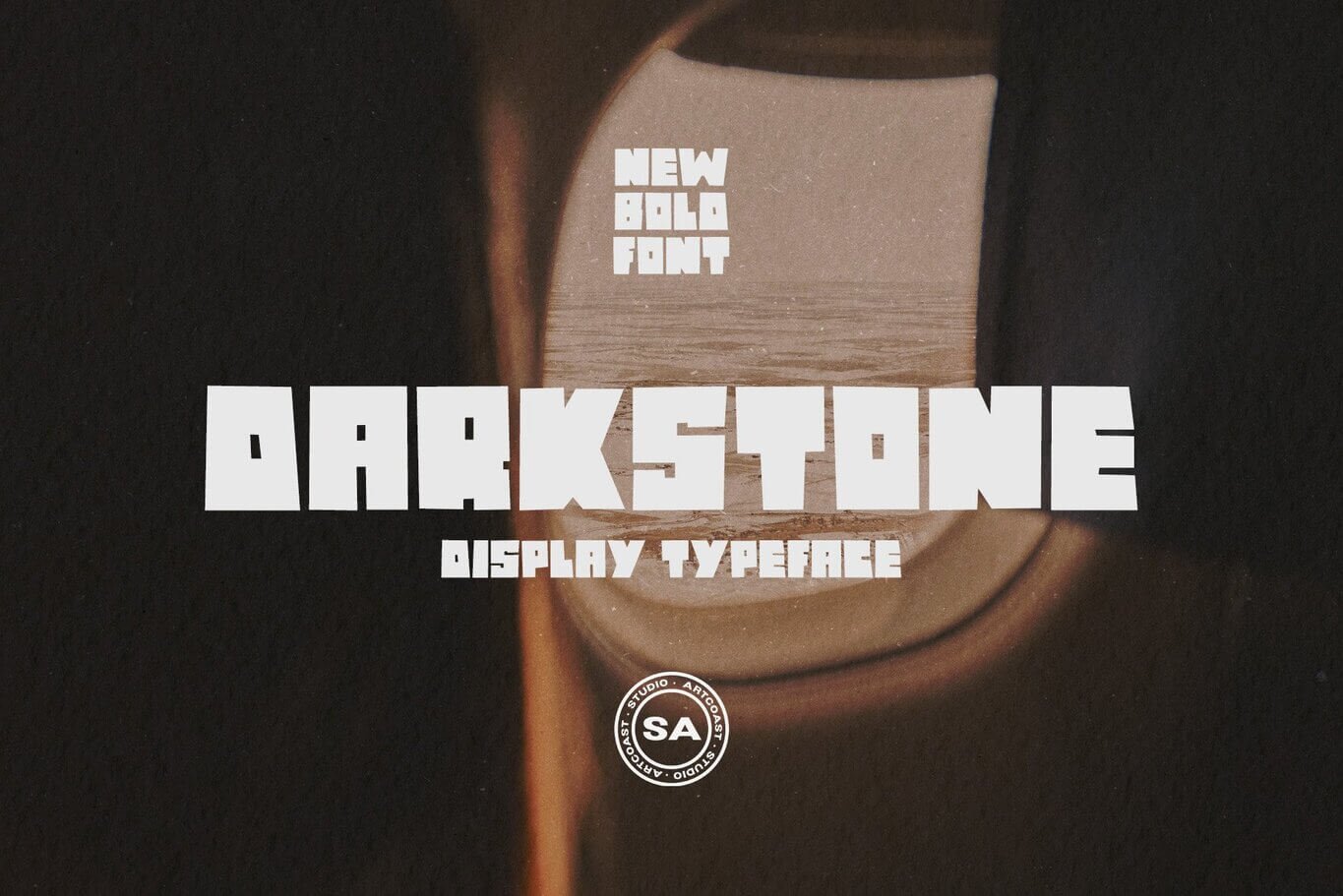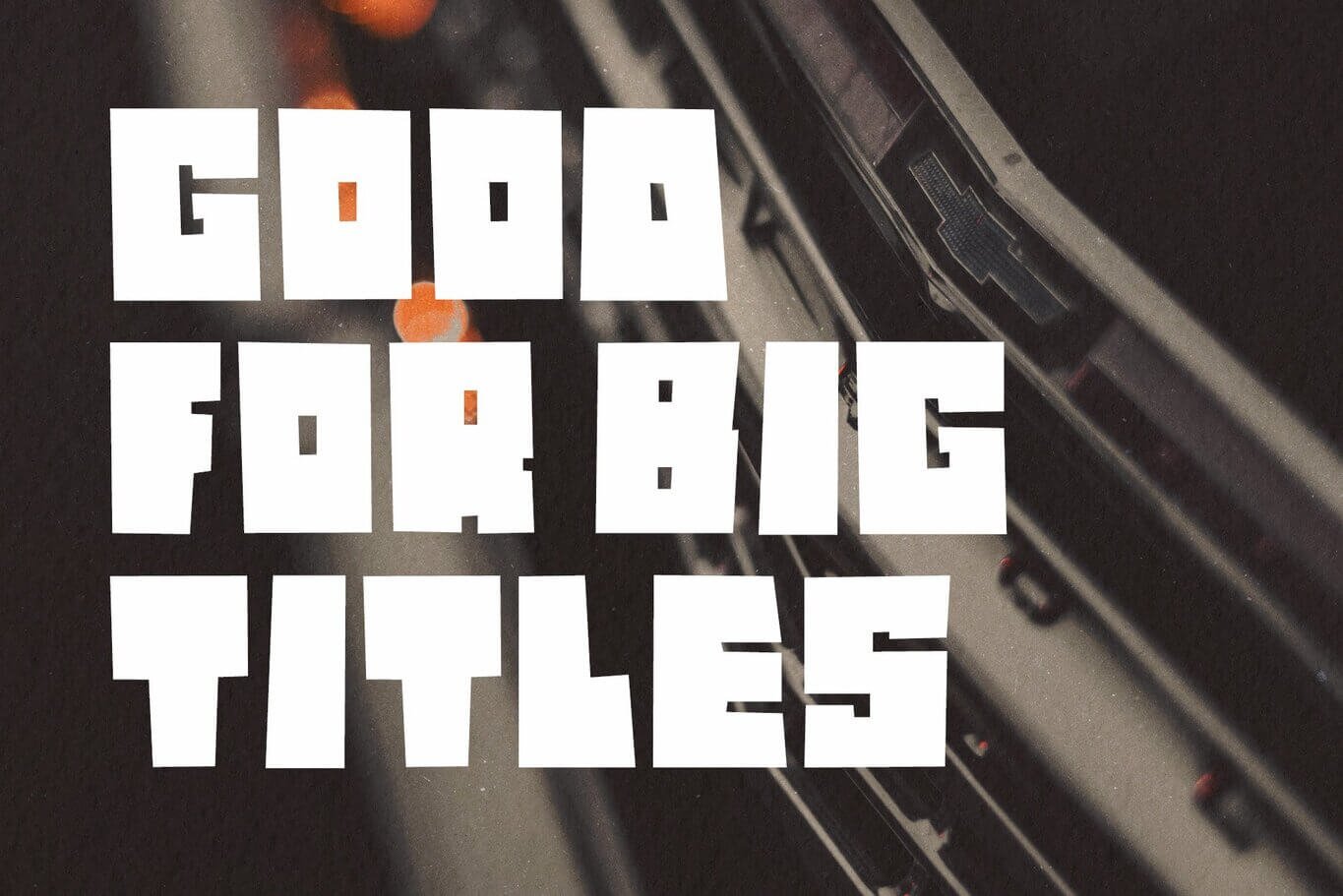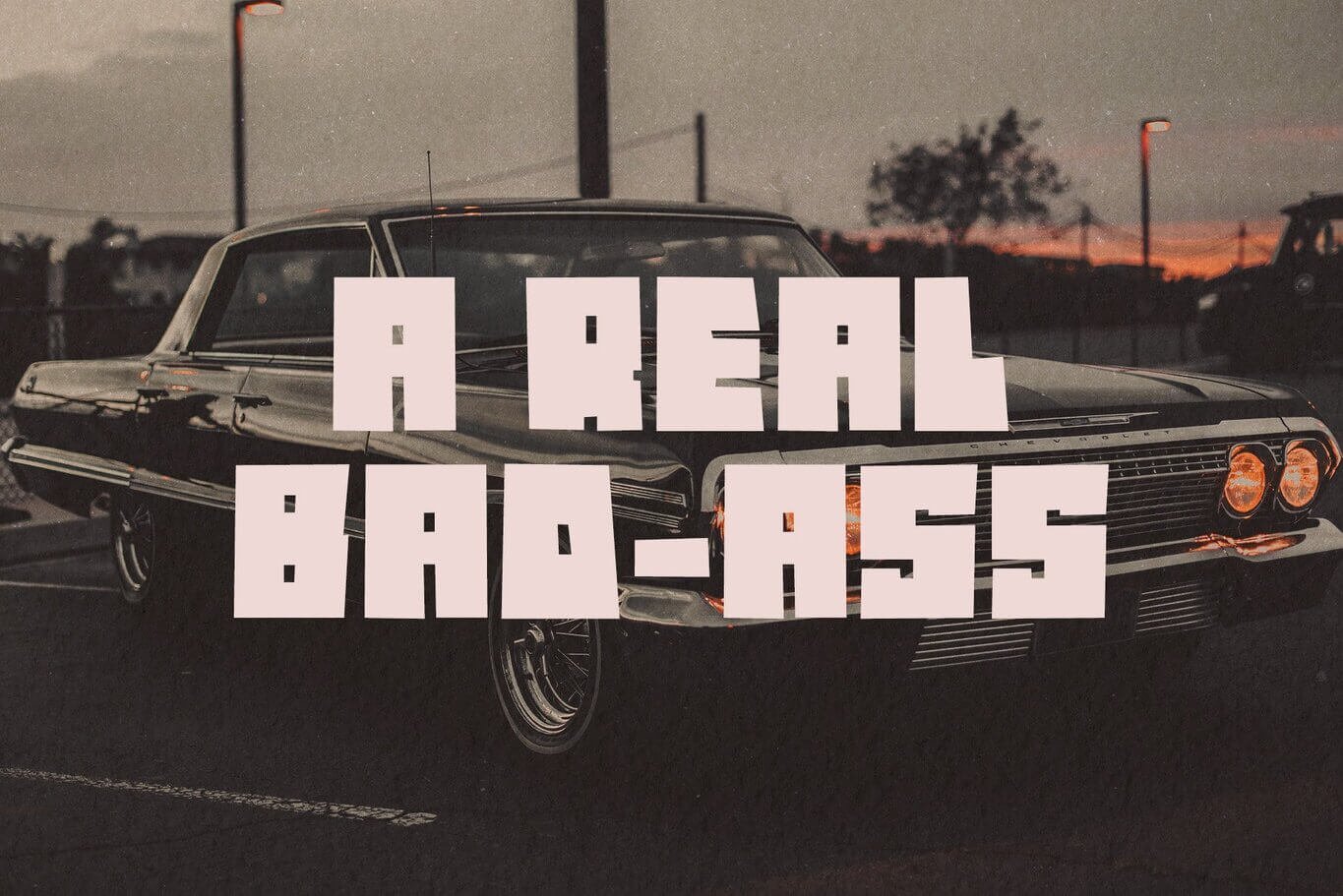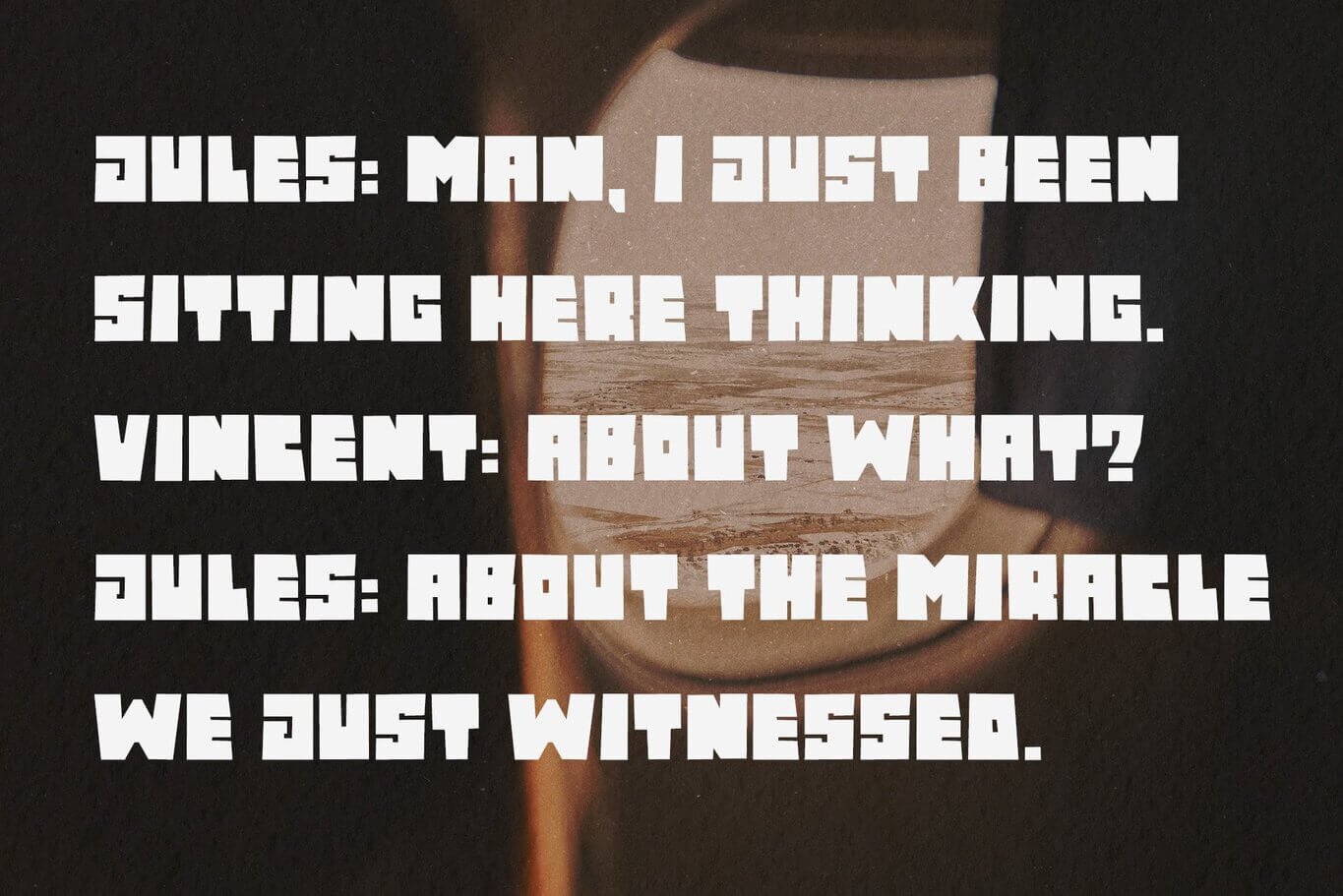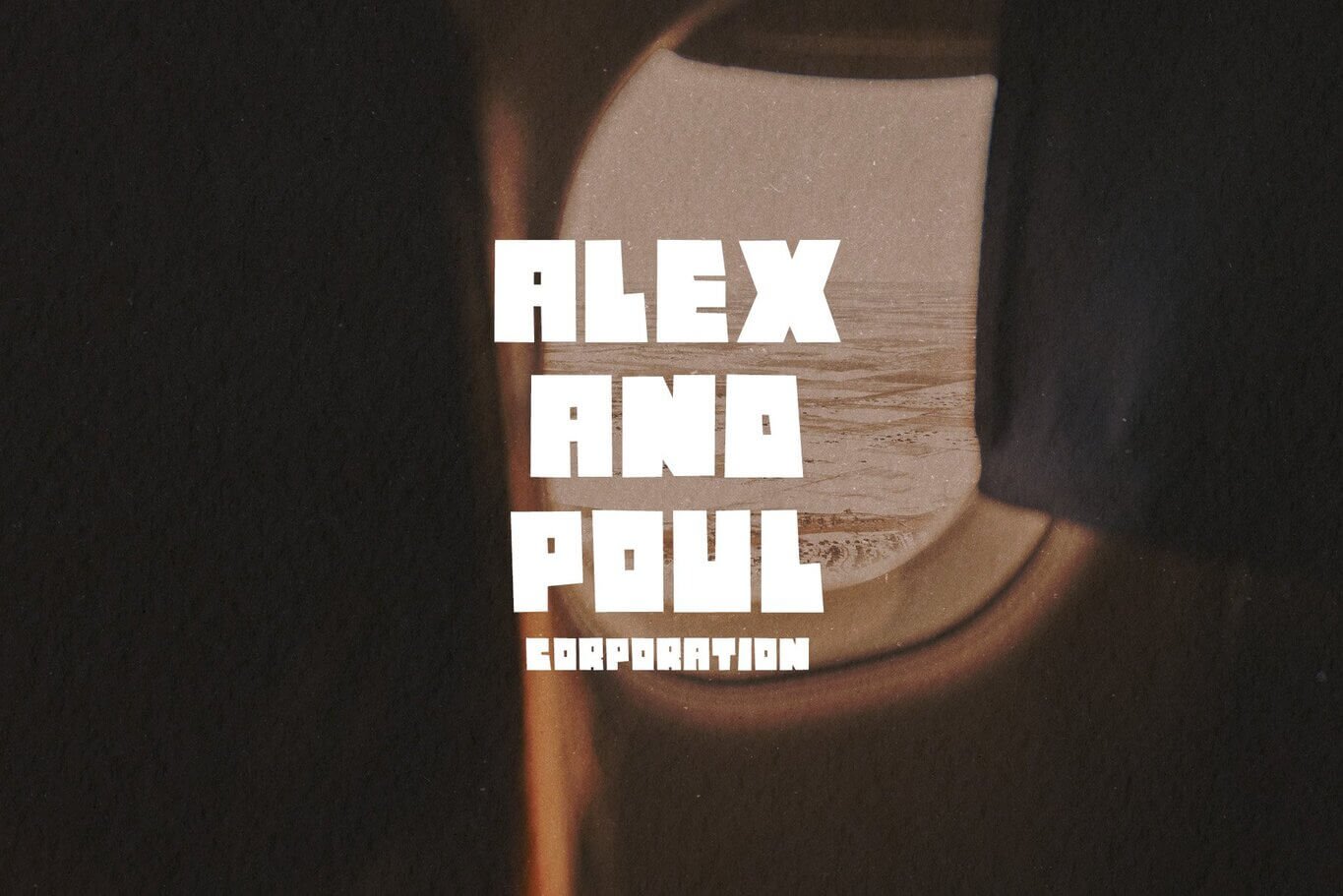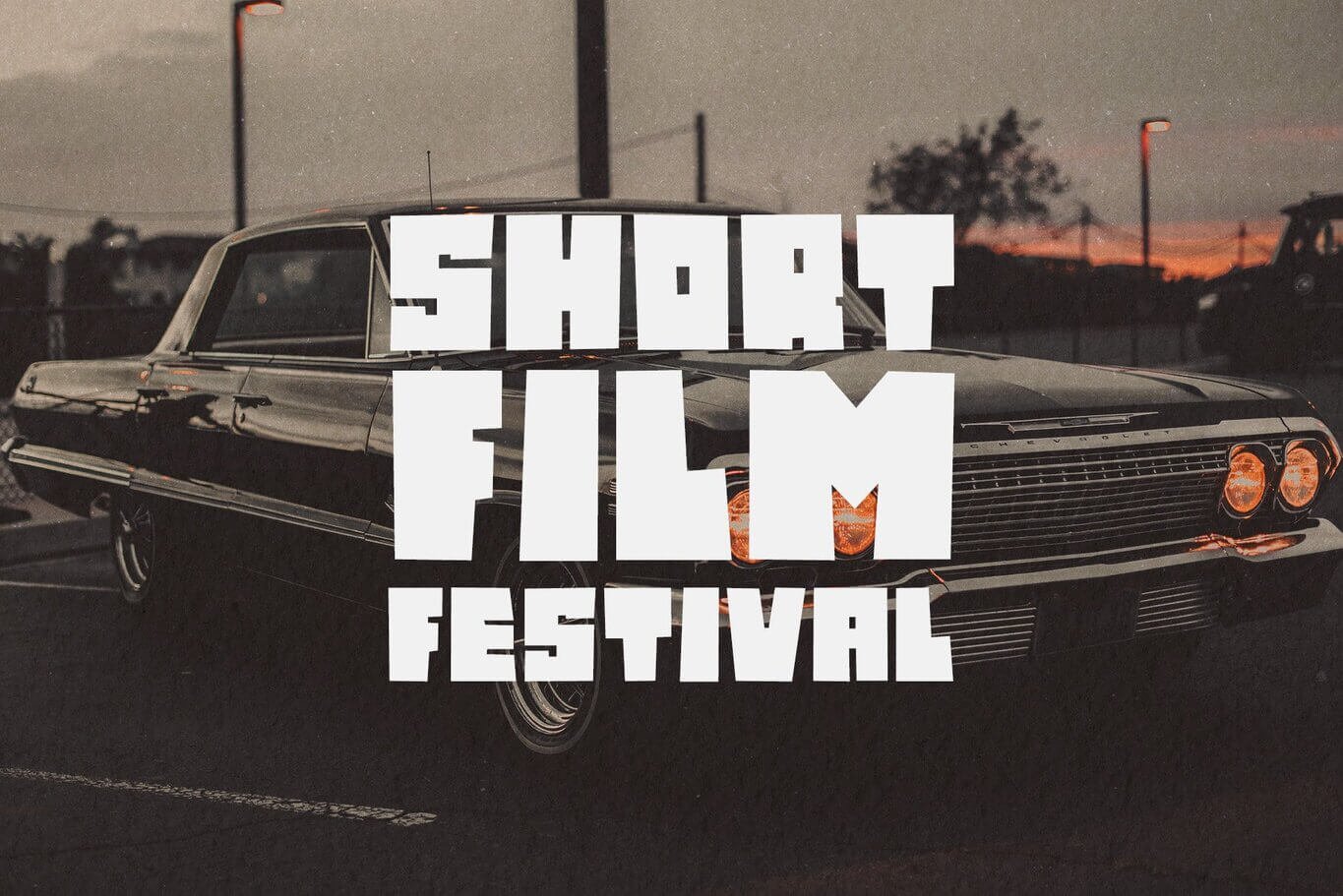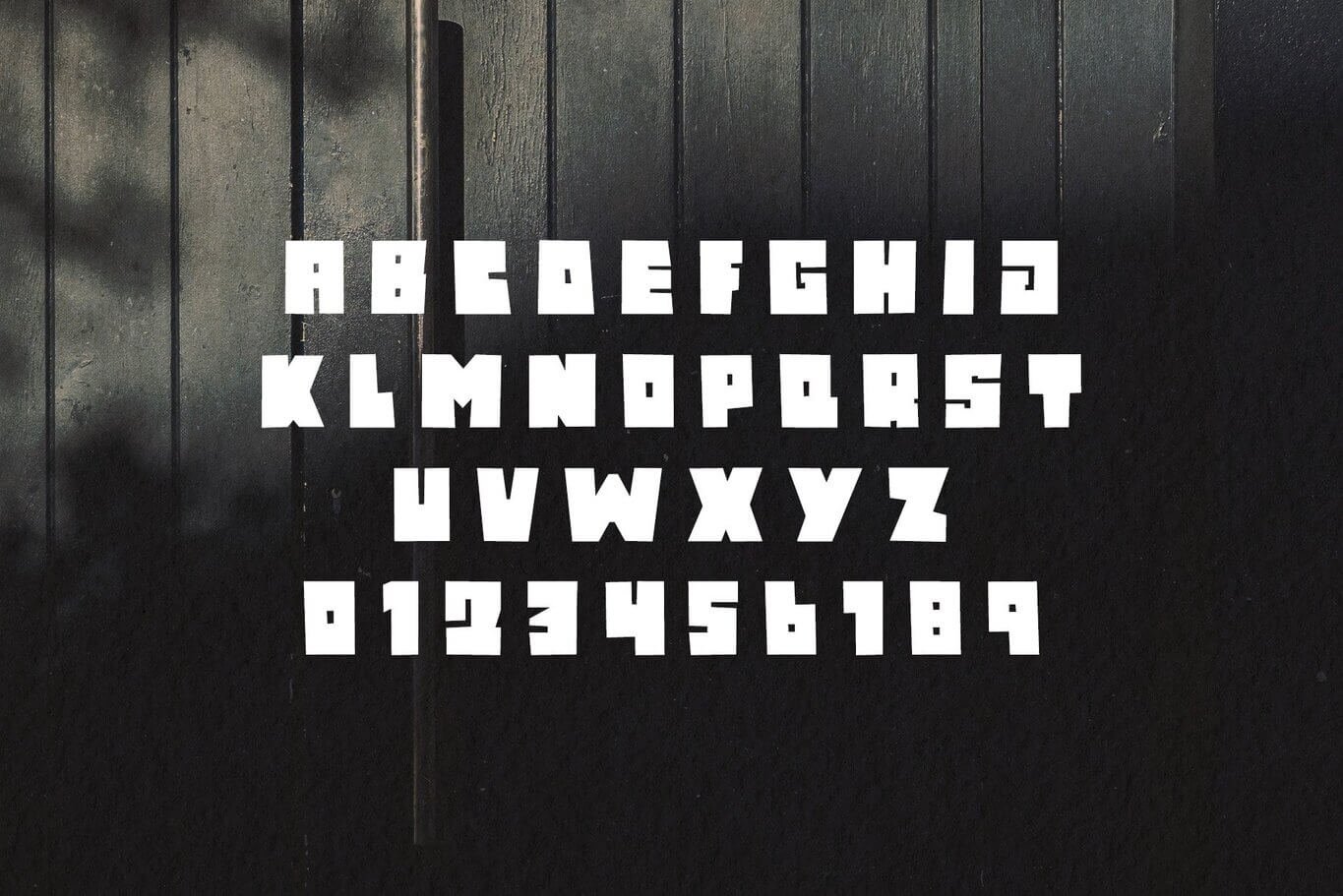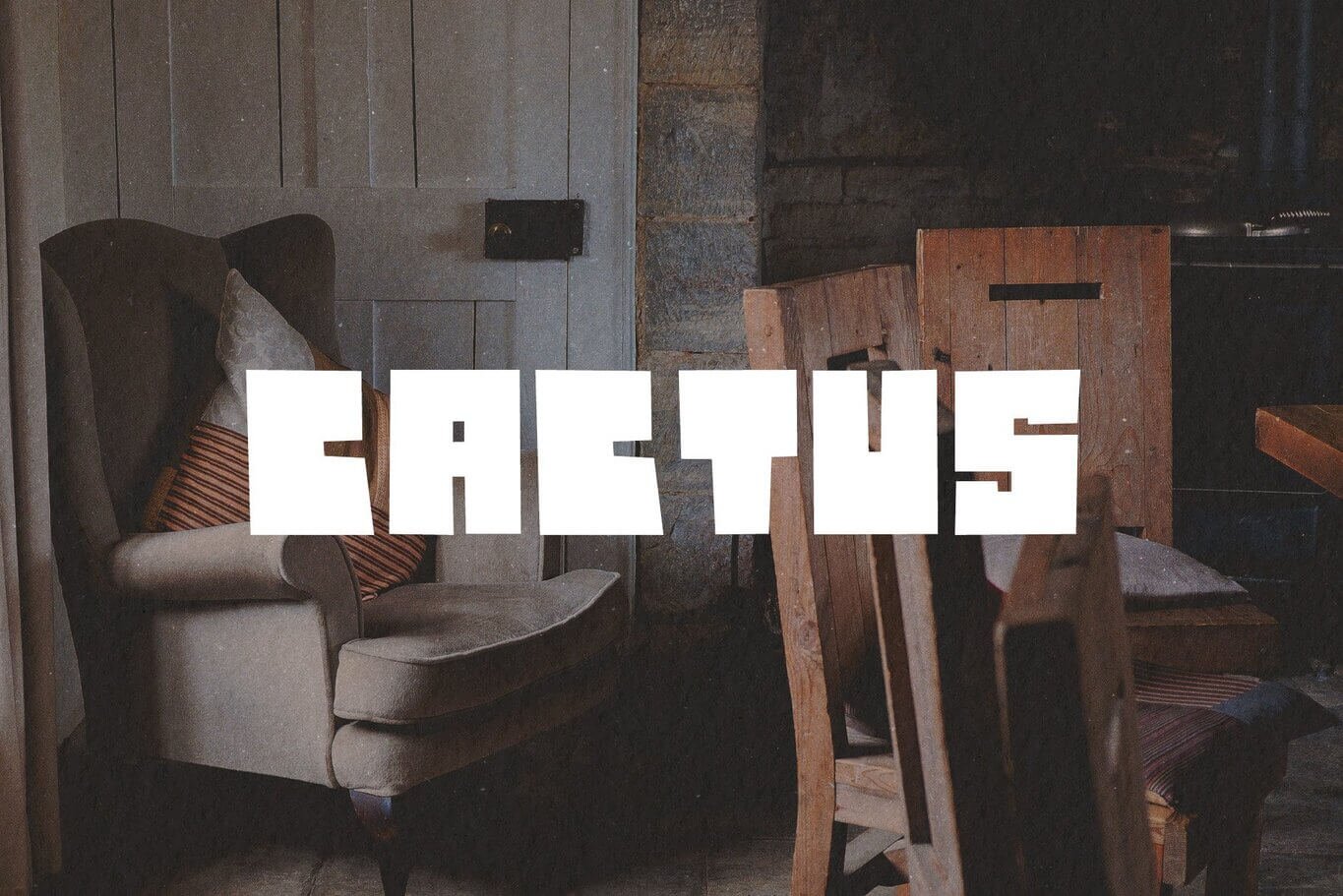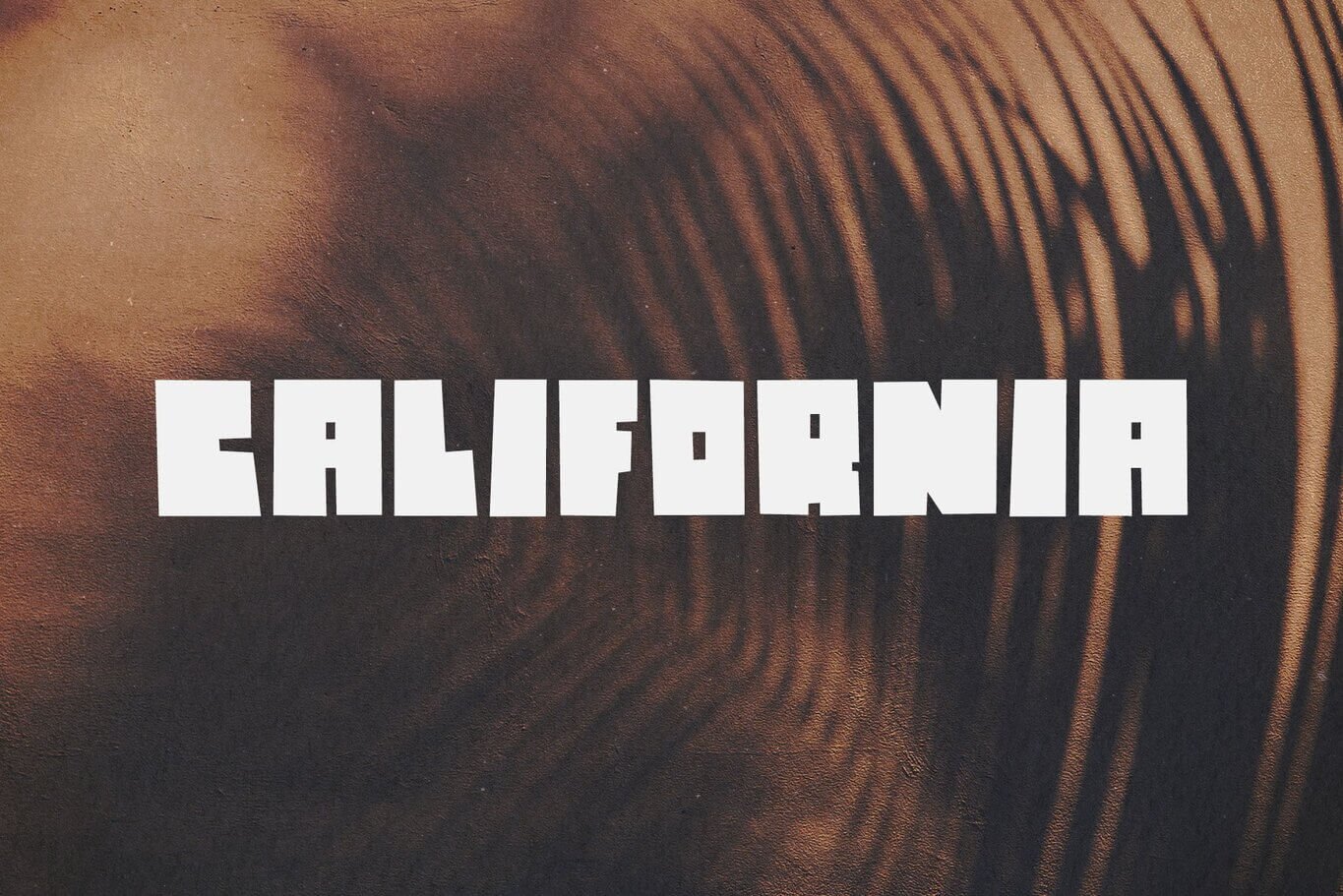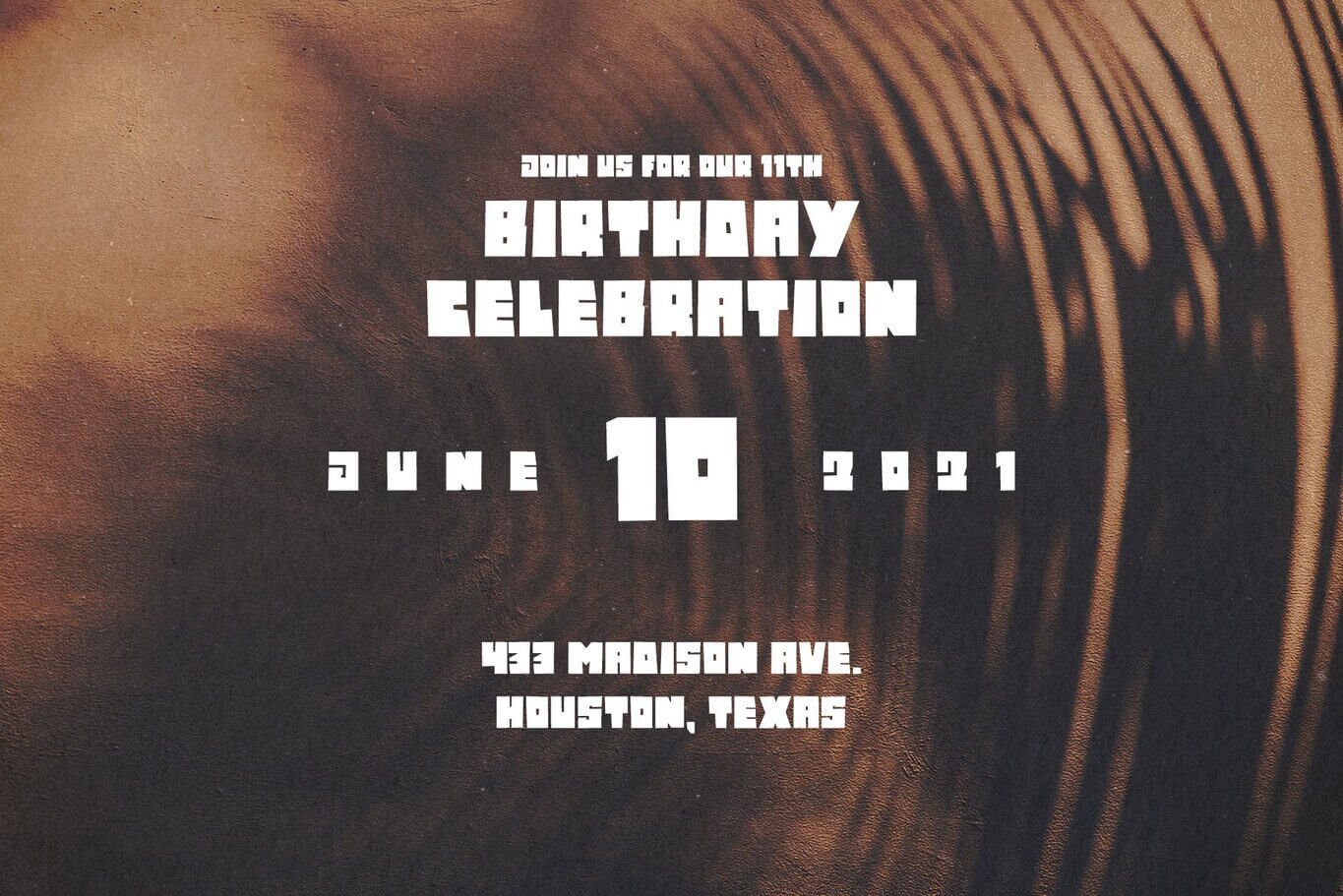
Dark Stone Font: Perfect for Branding and Posters
Enhance your project with the modern flair of Dark Stone, the ideal font for those seeking a bold and stylish touch. This all-caps sans serif typeface boasts a bold, contemporary aesthetic, making it perfect for headlines, branding, posters, packaging, titles, and logos.
Its sharp edges convey strength and impact, ideal for impactful statements. Choose Dark Stone to infuse your work with sophistication and style. Add it to your cart now and elevate your design game!
Uppercase letters, numbers, punctuation